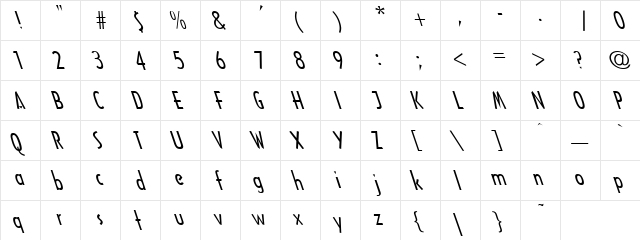
Arcitectura Lefty Regular
Design Context for Arcitectura Lefty Typeface
Arcitectura Lefty is a composed and adaptable typeface that performs quietly and consistently across a wide range of design contexts.
Pro Tip: Use Arcitectura Lefty in both headline and body roles to test its range before committing to a single application.